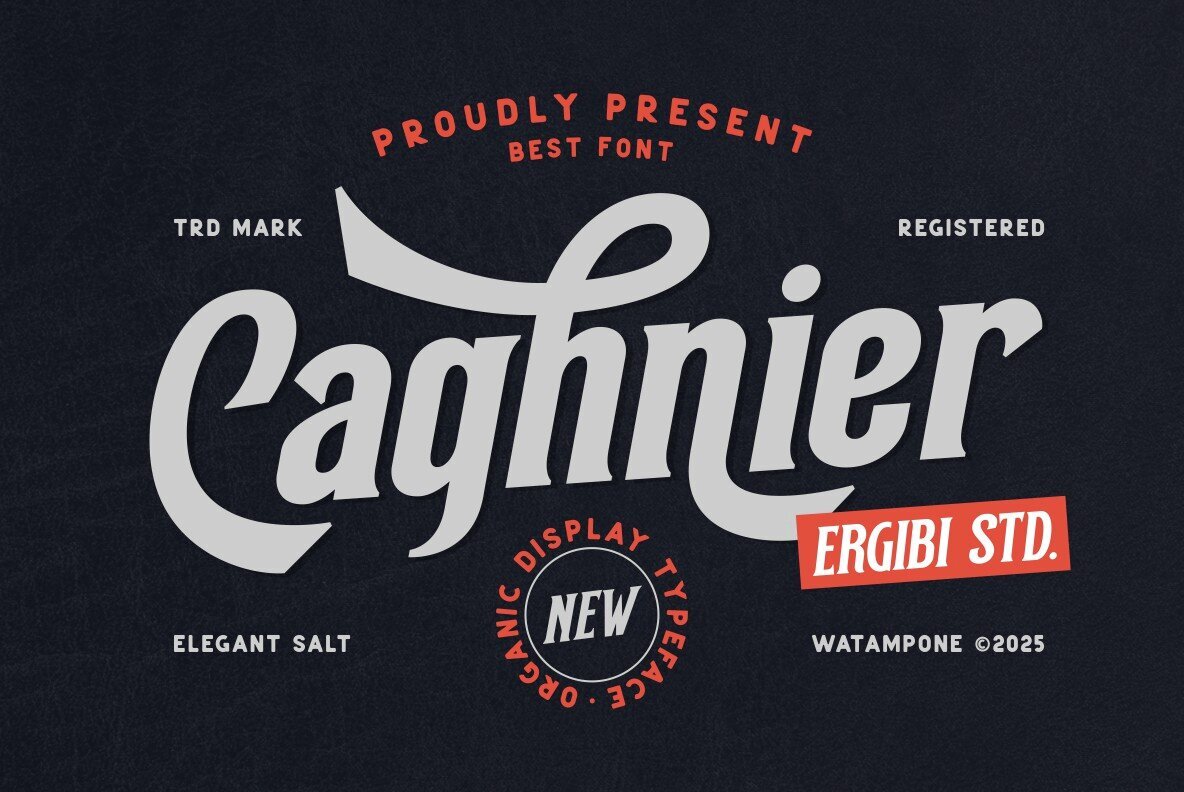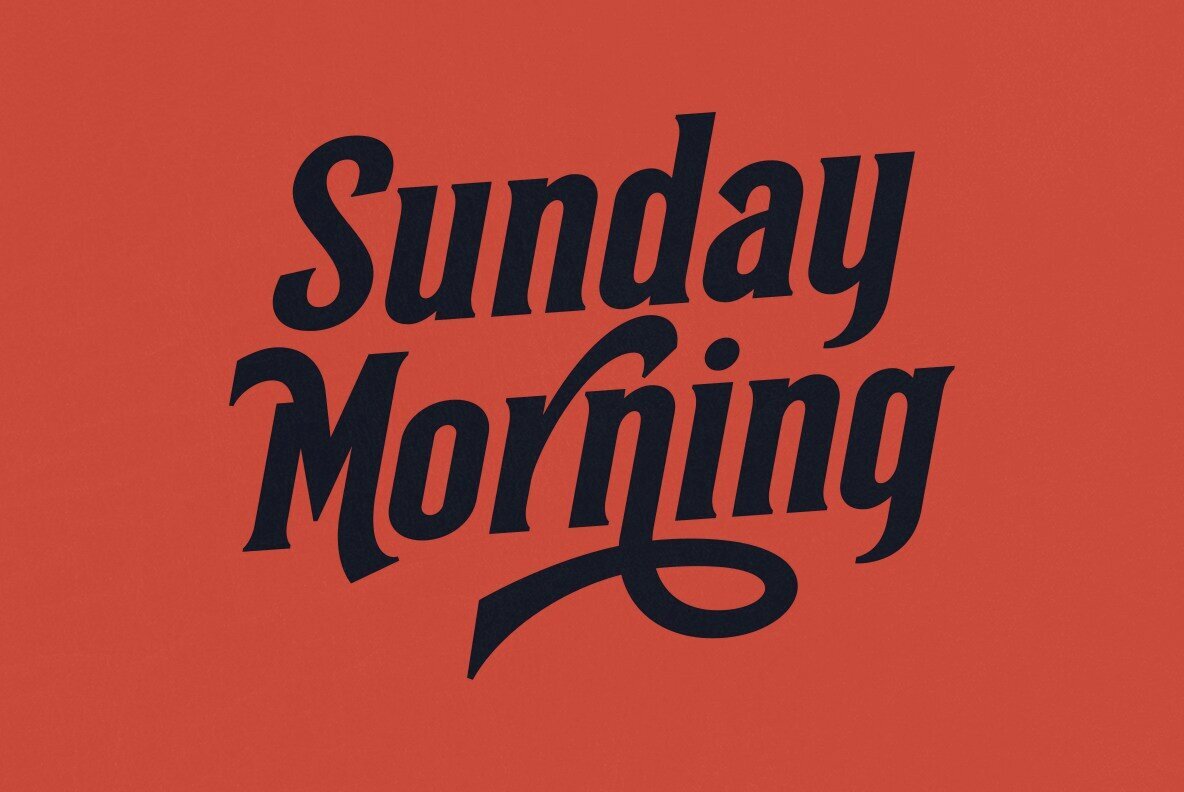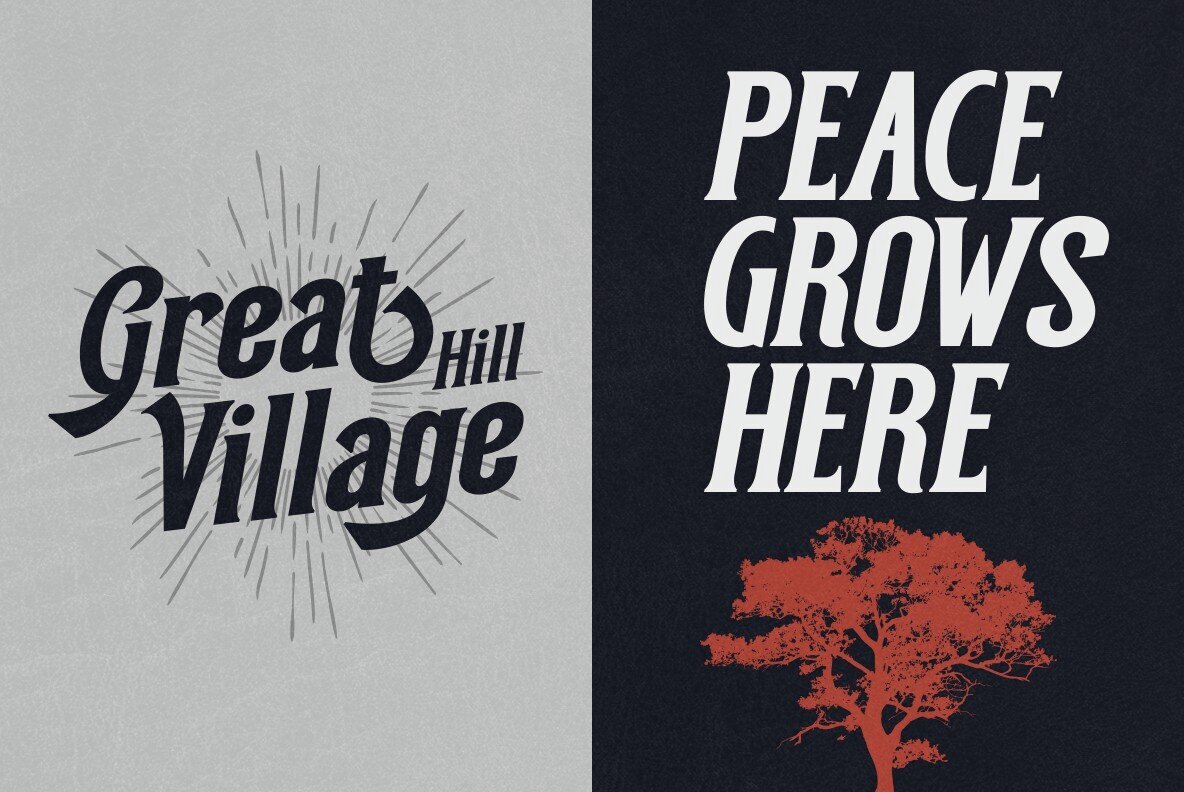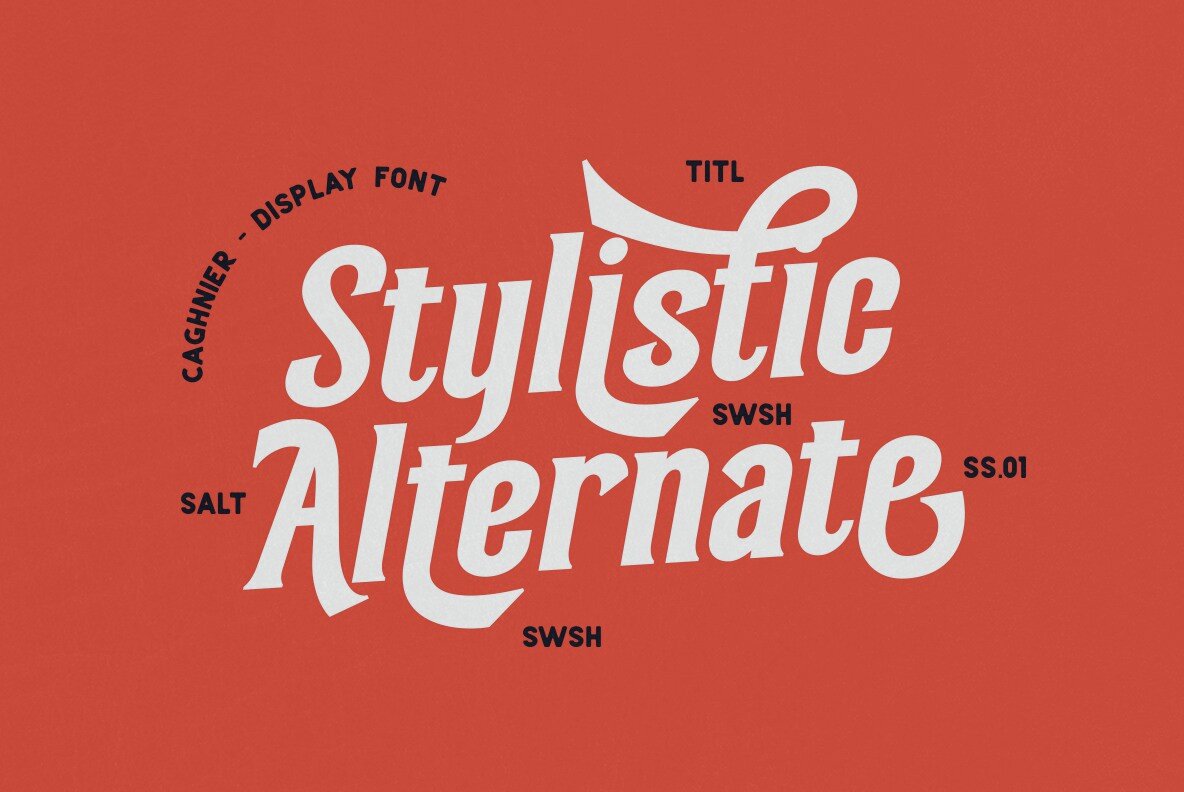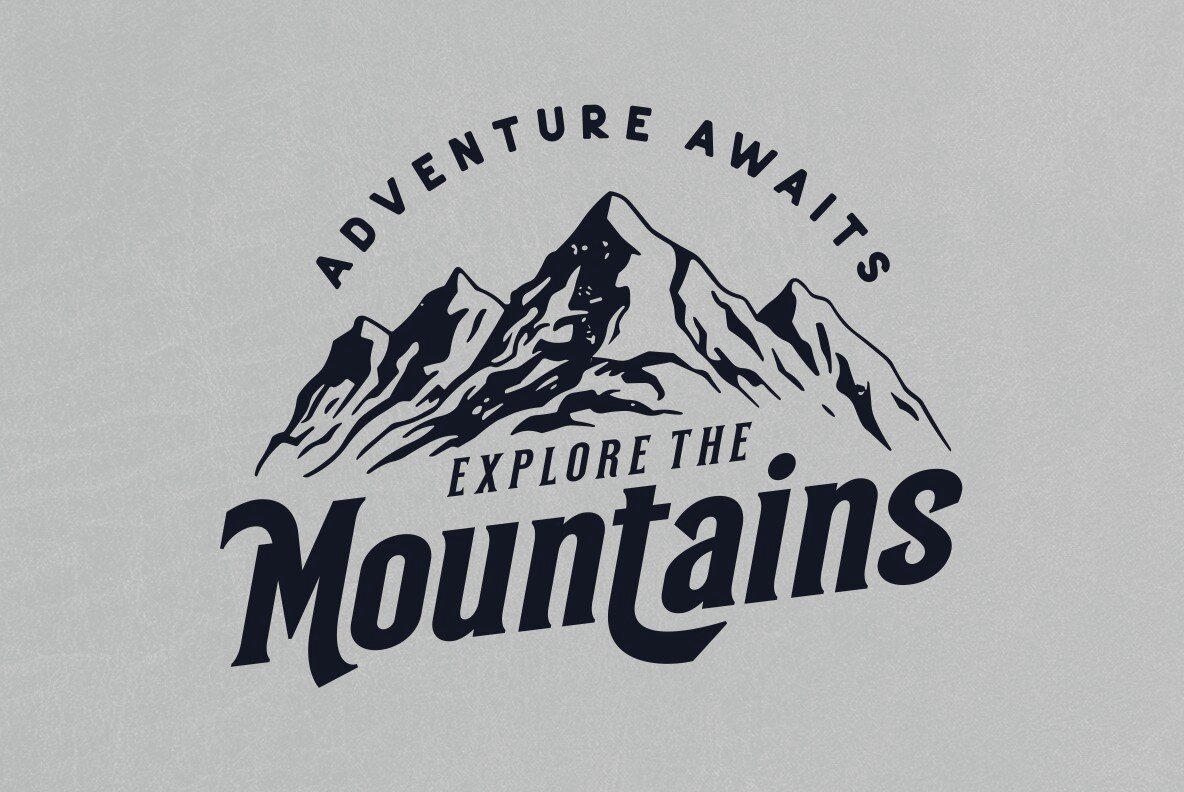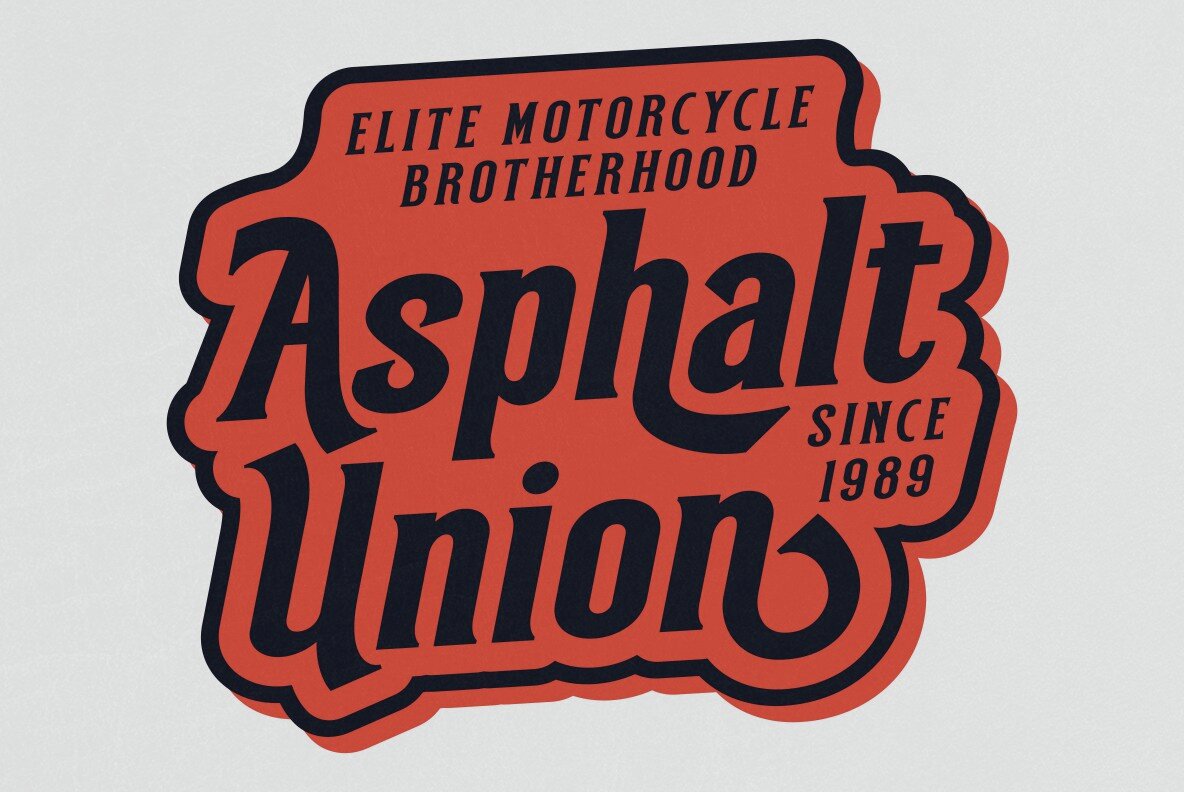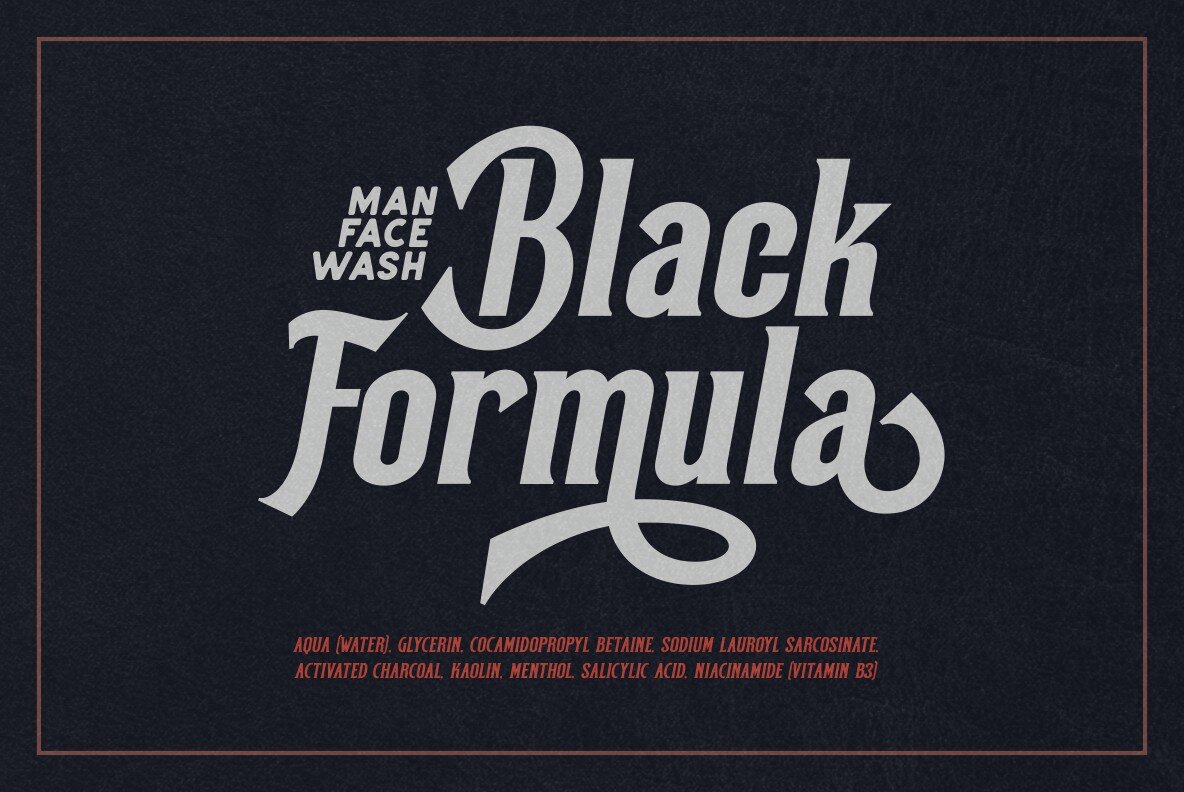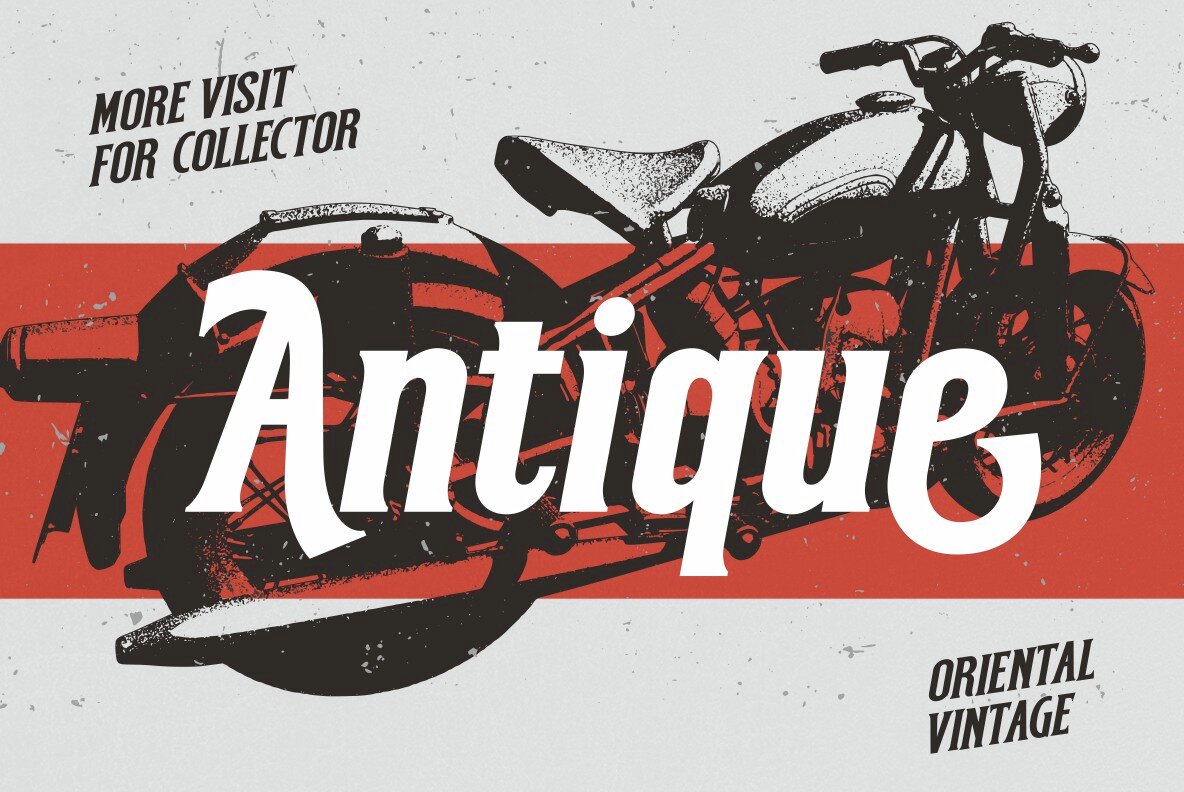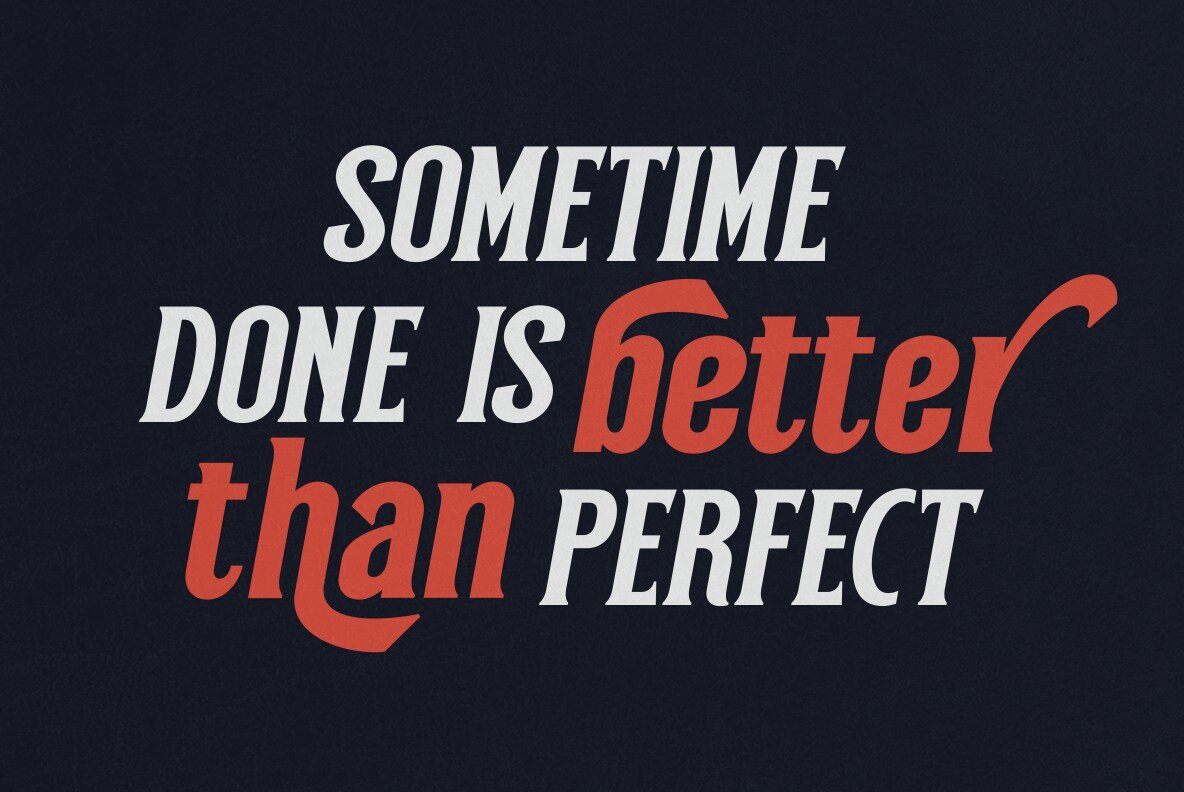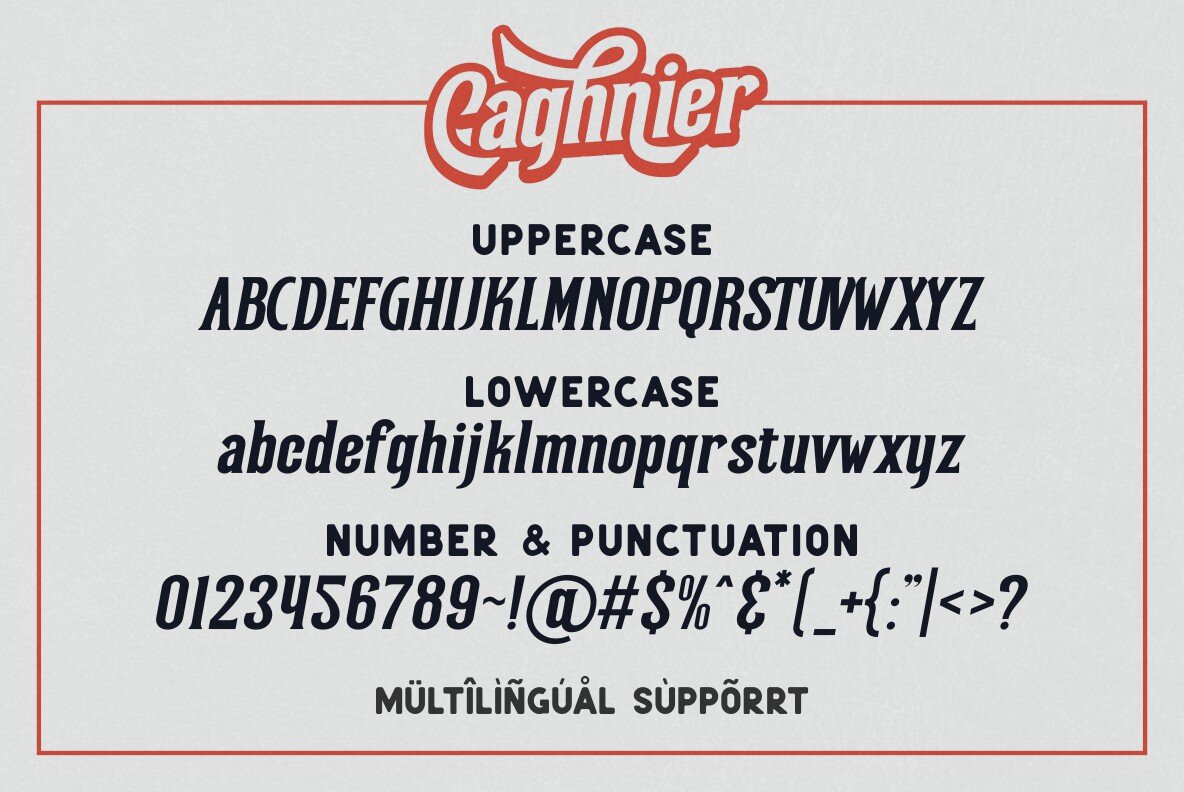
Caghnier Font
Caghnier
Caghnier invites designers into an elegant landscape where tradition and ornament converge. This decorative serif balances classic forms with thoughtfully composed alternates, offering a sophisticated solution for distinctive visual communication. The font’s refined contours provide clarity and character, making it approachable for editorial, branding, and identity work. With its versatile serif foundation, Caghnier maintains readability while allowing for creative approaches through its ornamental alternates. Designed for those who appreciate nuance in their typographic choices, this font is particularly well-suited for headlines, logotypes, and display applications where sophistication is essential.Caghnier: Decorative Serif with Ornamental Flair